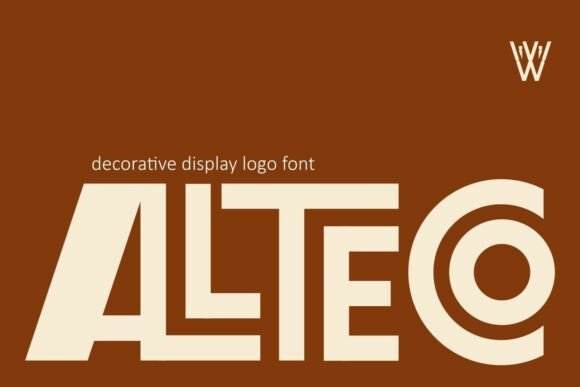
The Designer’s Dream Font: ALLTECO
Have you ever been in the middle of a design project, cruising along, and then suddenly hit a roadblock? For me, that roadblock often comes in the form of finding the perfect font. I recall working on a branding project for a fashion client, needing a font that was modern, stylish, and would make their logo pop. After hours of scrolling through font libraries, I stumbled upon ALLTECO – a modern retro display font that instantly caught my eye. In this article, I’ll share my experience with ALLTECO, its features, and how to make the most of it in your designs.
First Impressions: What I Love About ALLTECO
ALLTECO is a game-changer for designers looking for a bold, stylish font that can elevate their branding and advertising designs. Here are some of the things I love about ALLTECO:
• ✨ Modern Retro Aesthetic: ALLTECO has a unique blend of modern and retro elements, making it perfect for designers who want to create a distinctive brand identity.
• ✅ Easy to Use: This font is incredibly easy to use, even for those who are new to design. With just one line of typing, you can create professional-looking logos and headlines.
• 🔥 Strong Geometric Shapes: ALLTECO features strong geometric shapes and distinctive letterforms that make it perfect for logos, brand identities, and advertising designs.
• 📸 Versatile: This font is suitable for a wide range of design projects, including logos, posters, fashion campaigns, packaging, editorial layouts, social media graphics, and more.
Honest Review: Small Quirks and Limitations
While ALLTECO is an amazing font, it’s not without its quirks. Here are a few things to keep in mind:
• 🤔 Limited Customization: While ALLTECO is easy to use, it may not offer as much customization as some designers would like. However, this is also part of its charm – it’s a font that works well as is.
• ⚠️ Not Suitable for Body Text: ALLTECO is a display font, which means it’s best used for headlines and titles rather than body text. Using it for body text may make your content difficult to read.
ALLTECO comes with a range of OpenType features and glyphs that can help you create unique and creative designs. Here are some tips for exploring these features:
Q: What is ALLTECO suitable for?
A: ALLTECO is suitable for logos, brand identities, fashion campaigns, posters, packaging, editorial layouts, social media graphics, and modern advertising designs.
Q: Is ALLTECO easy to use?
A: Yes, ALLTECO is incredibly easy to use, even for those who are new to design. With just one line of typing, you can create professional-looking logos and headlines.
Q: Can I use ALLTECO for body text?
A: No, ALLTECO is a display font and is best used for headlines and titles rather than body text.